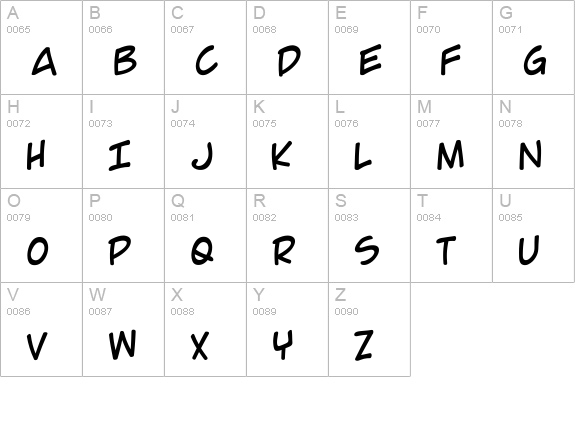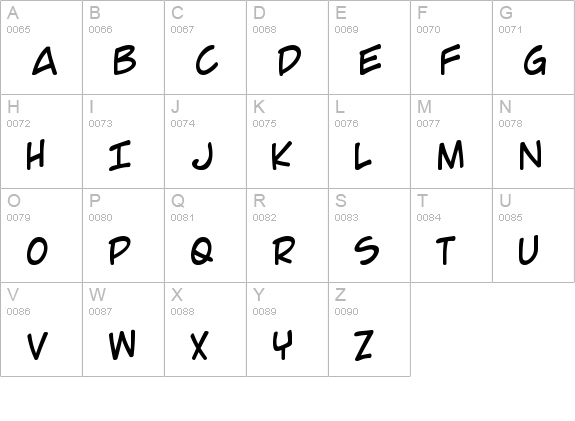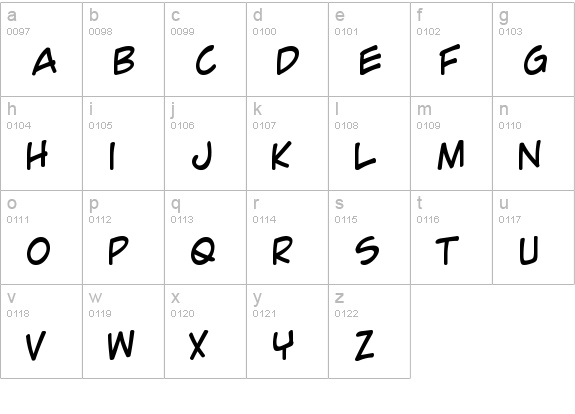
Comic Geek Font Details
Comic Geek font is a fun and playful typeface designed for all the comic book enthusiasts out there. With its bold and energetic lettering, this font captures the essence of classic comic book art while adding a modern twist. Perfect for creating eye-catching titles, posters, and logos, Comic Geek font is sure to bring a touch of whimsy to any design project. The best part? Comic Geek font is available for free download at FontsMarket.com. So whether you're a seasoned comic book collector or just a casual fan, you can easily add this dynamic font to your collection and start creating your own comic-inspired designs today. Don't miss out on this exciting opportunity to unleash your inner superhero with Comic Geek font!